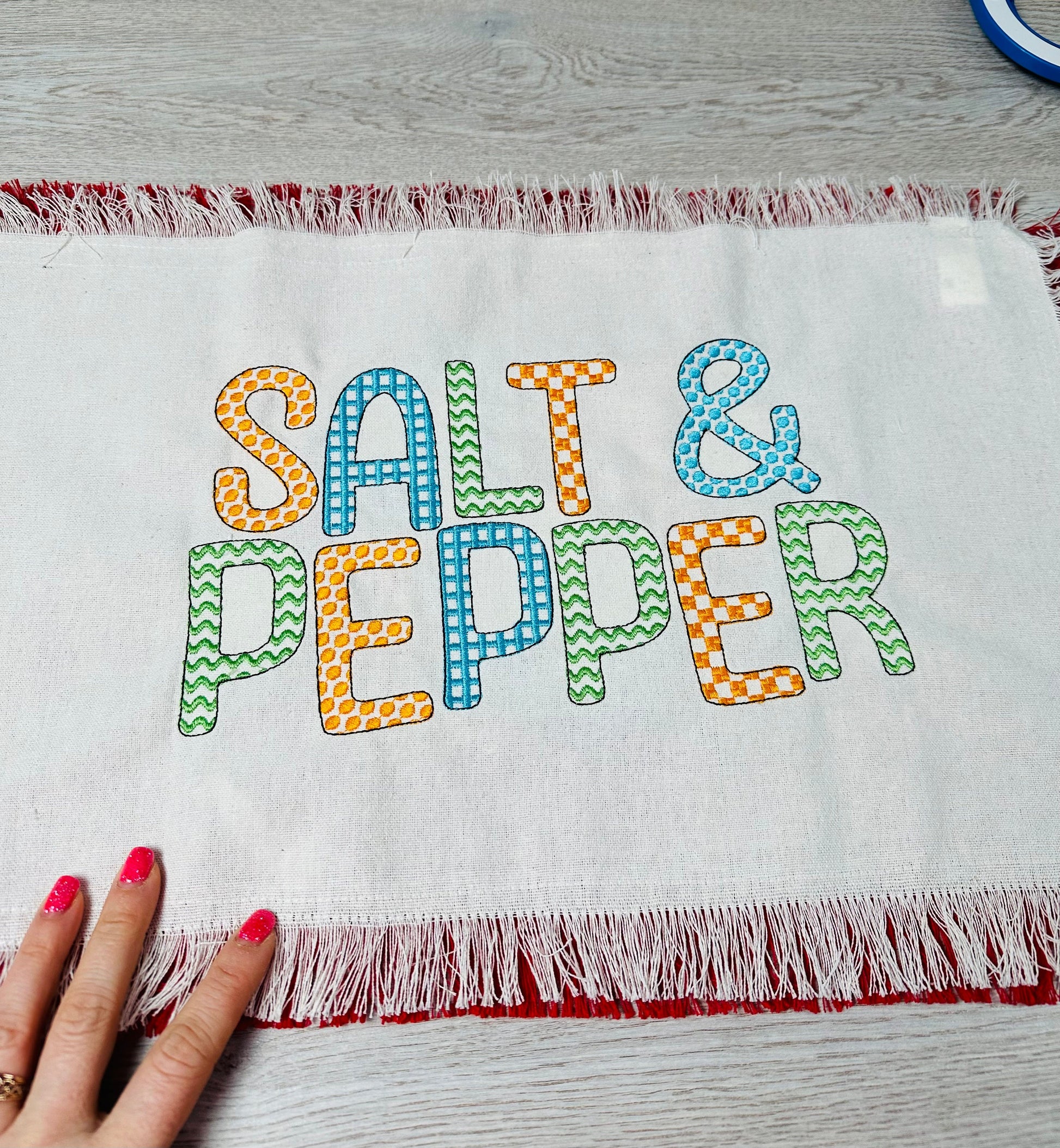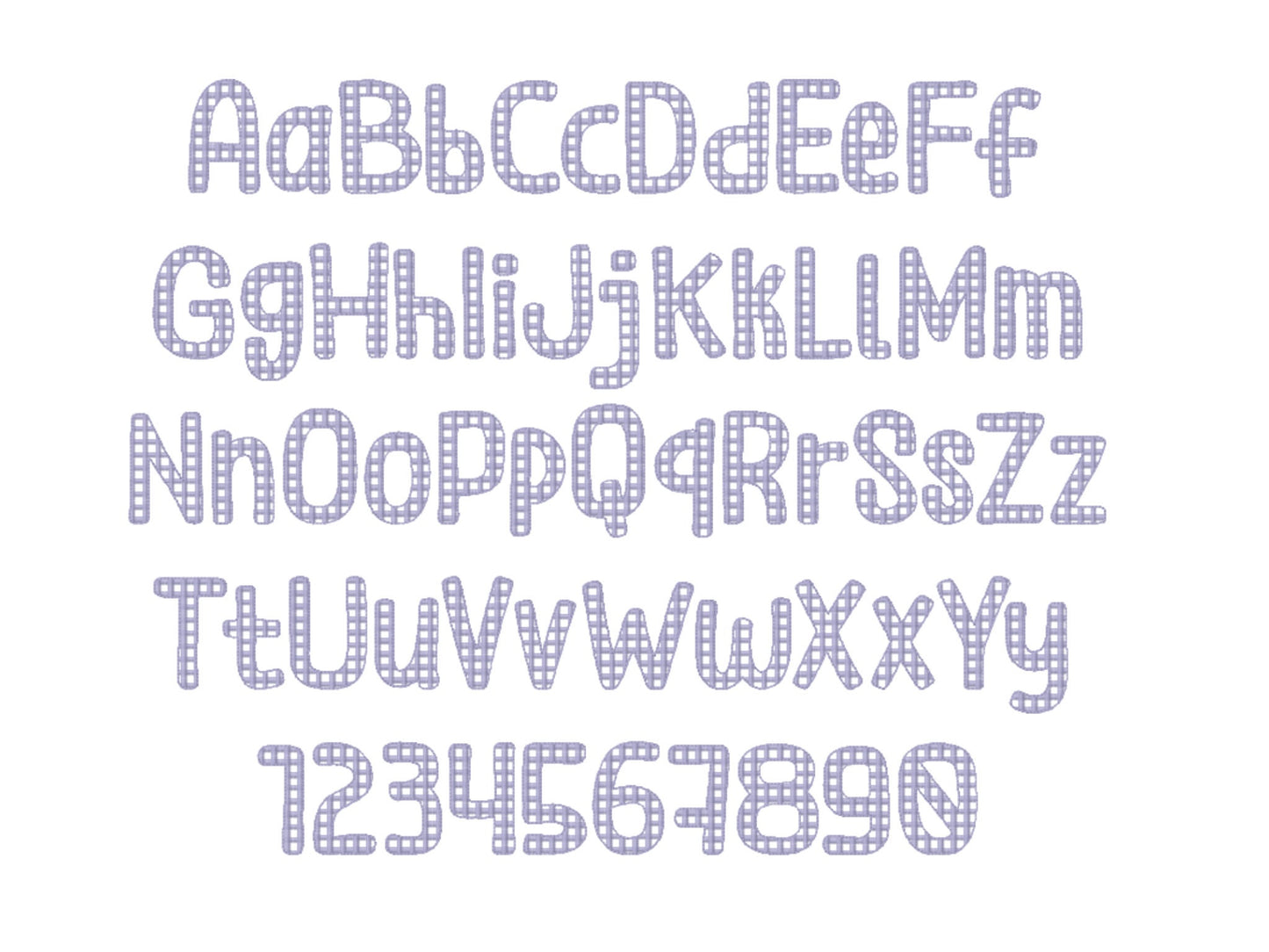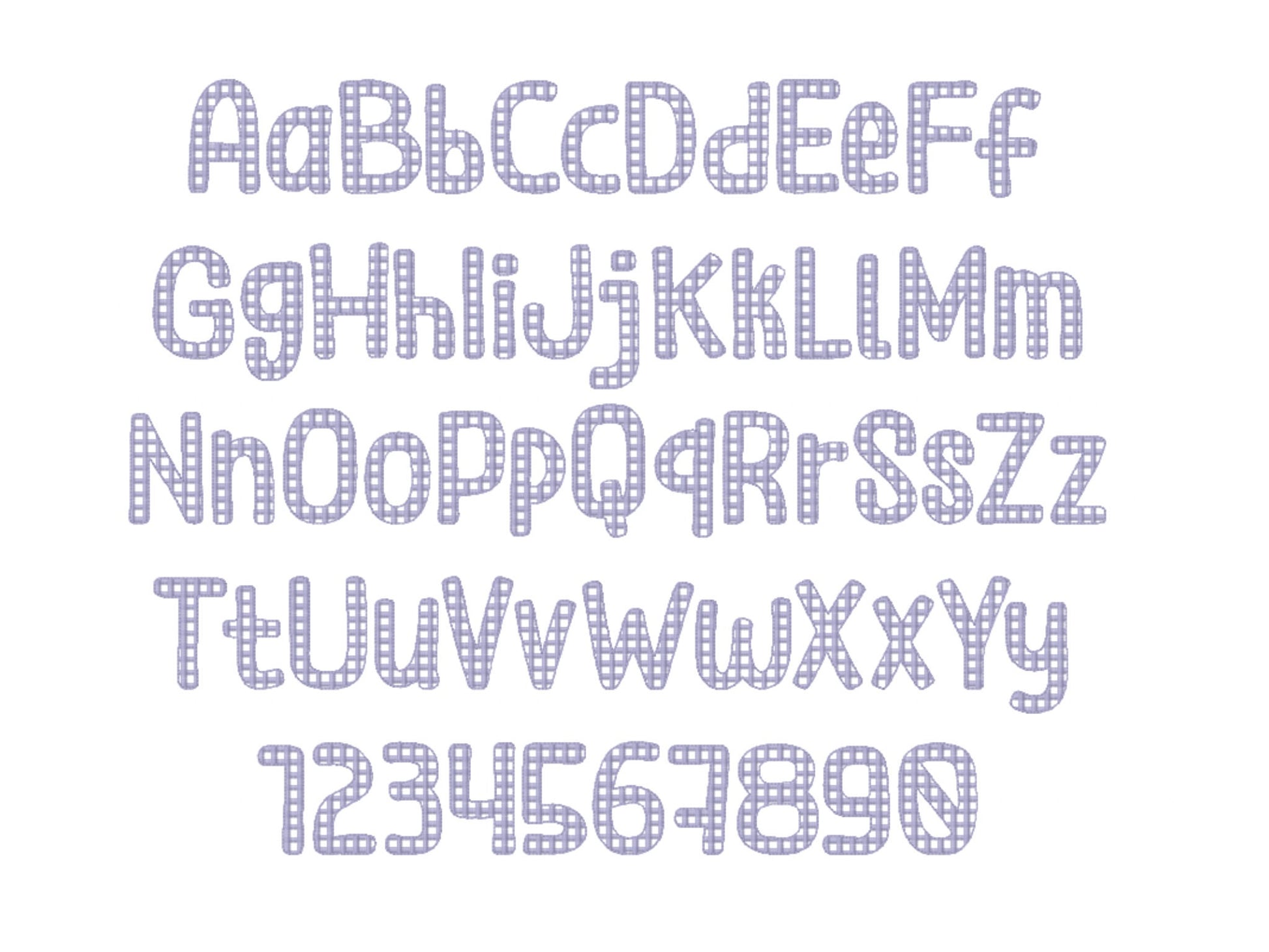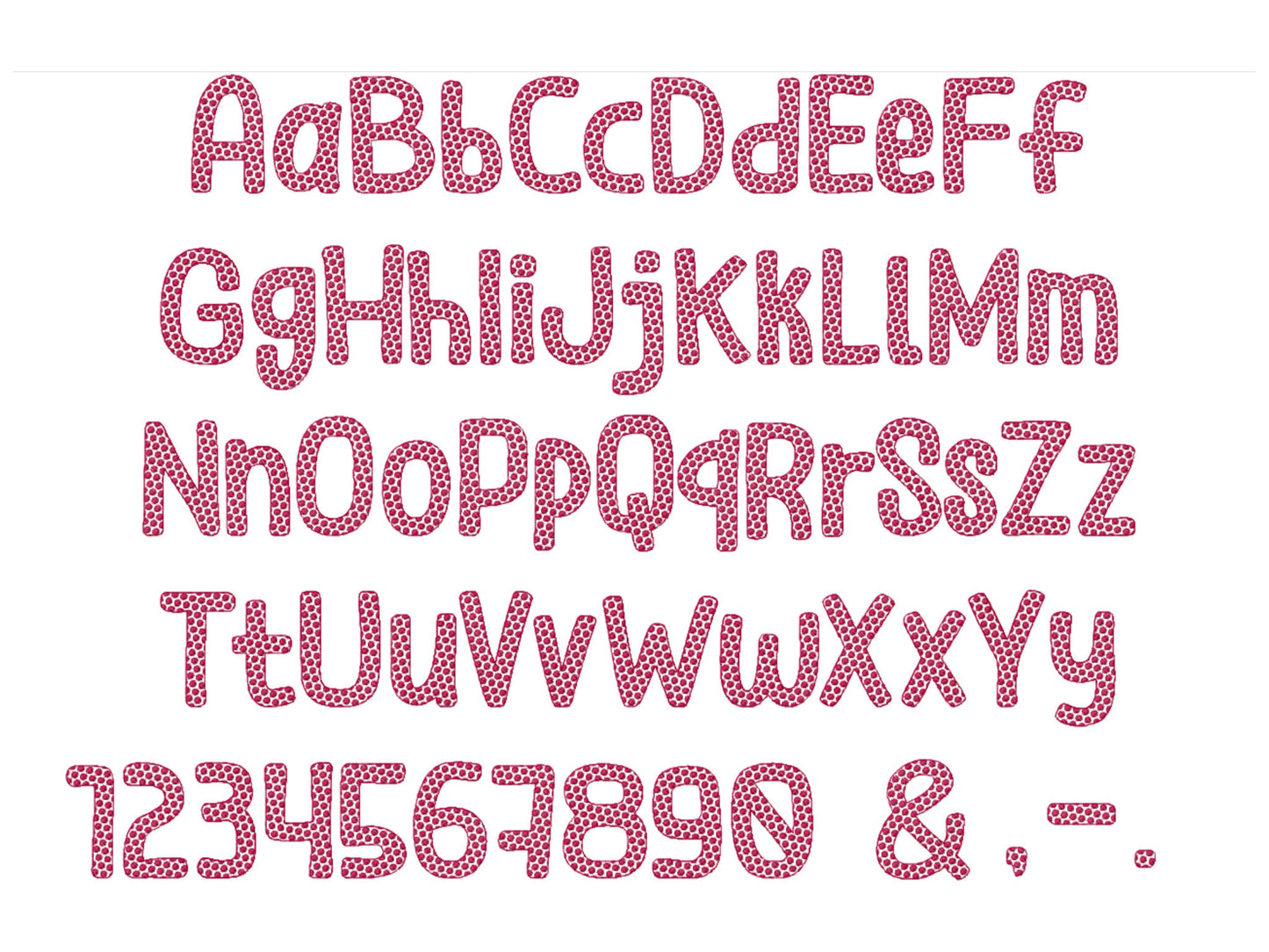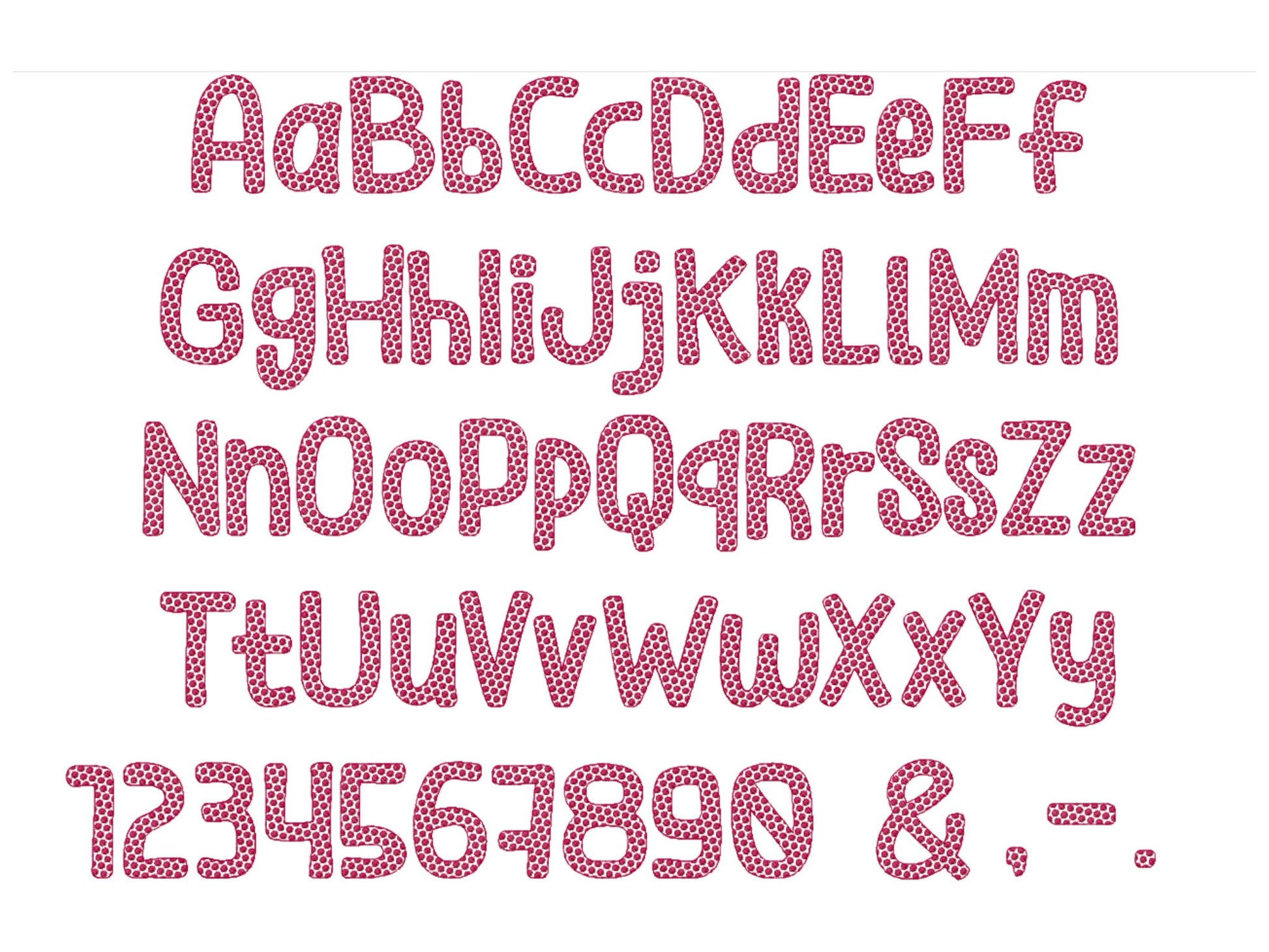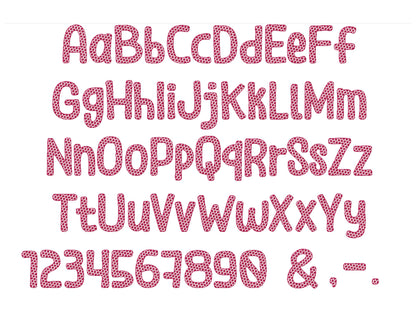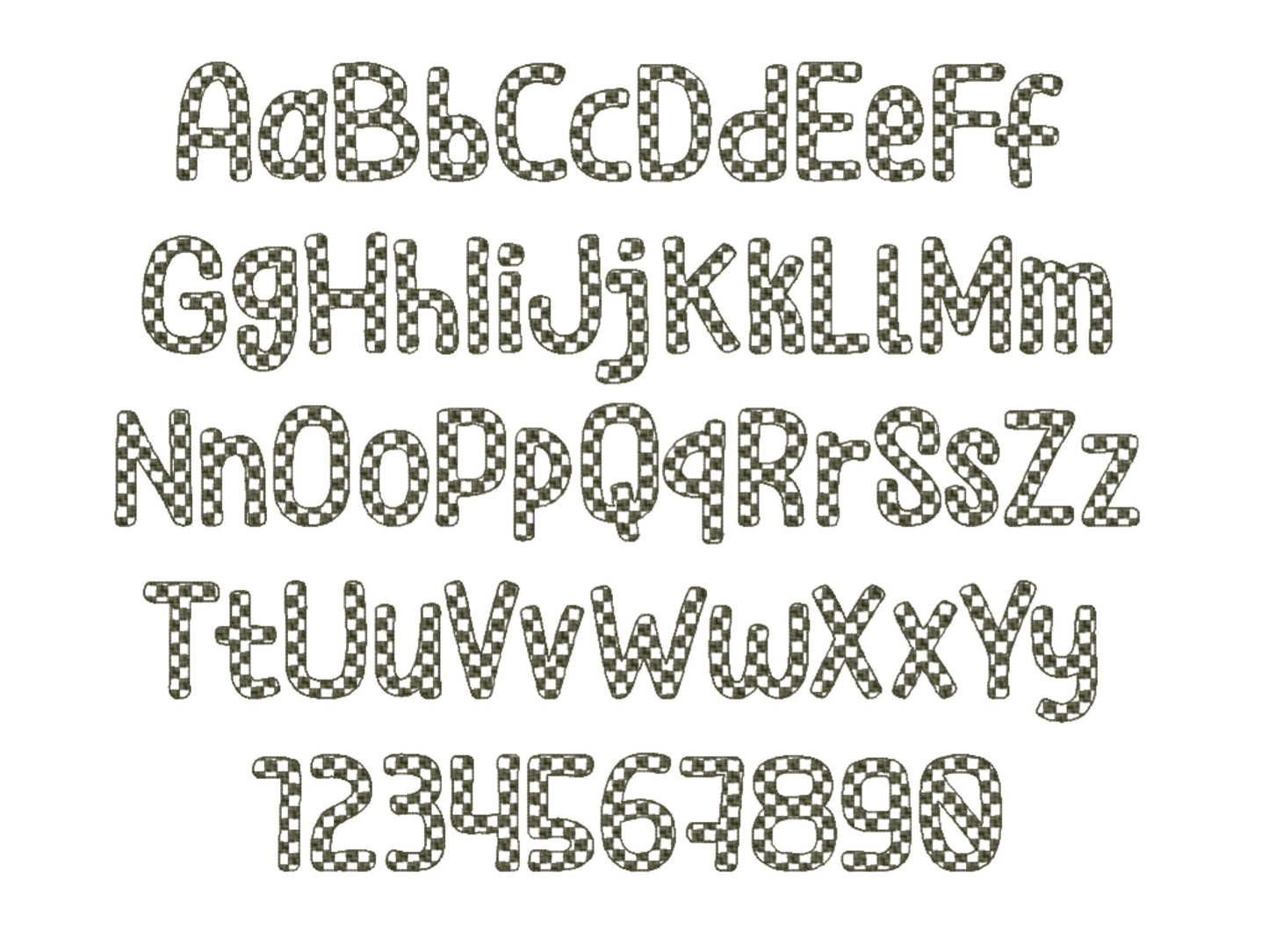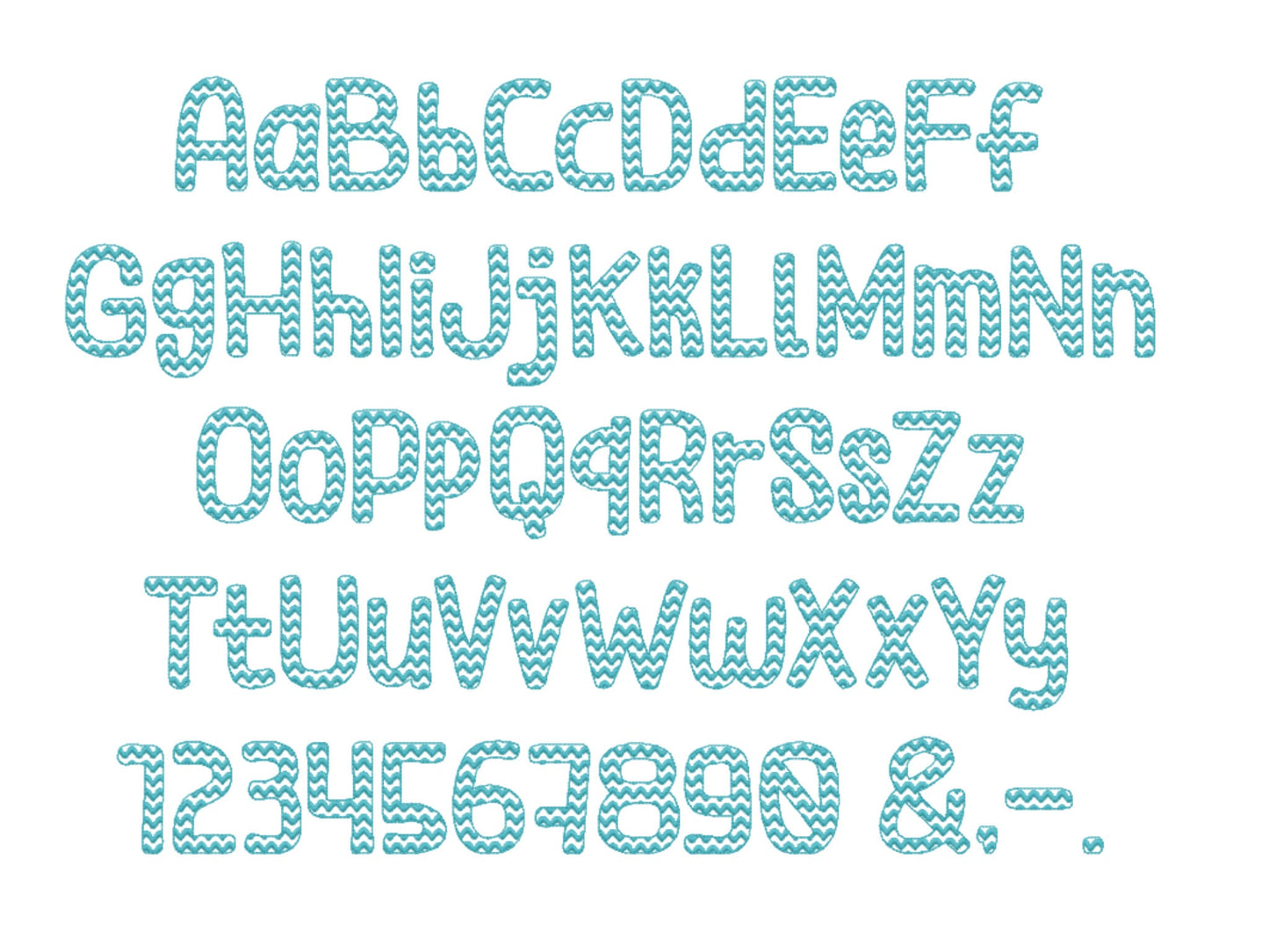
Dots Checks Waves Chess Alphabets
Or click to open the linkFour decorative patterned fonts with dots, checks, chess squares and ricrac waves, made to mix and match. Fun for kids' names, pillows and bags.
Four fonts: dotted, checkered, chess and ricrac. Transparent letters with a fill or satin stitch pattern inside and a light bean stitch outline. Each has uppercase and lowercase letters, numbers 0 to 9 and punctuation in eight sizes: 0.8, 1.2, 1.5, 2, 2.5, 3, 4 and 5 inches.
- 4 patterned fonts: dots, checks, chess, waves
- 8 sizes, 0.8 to 5 in